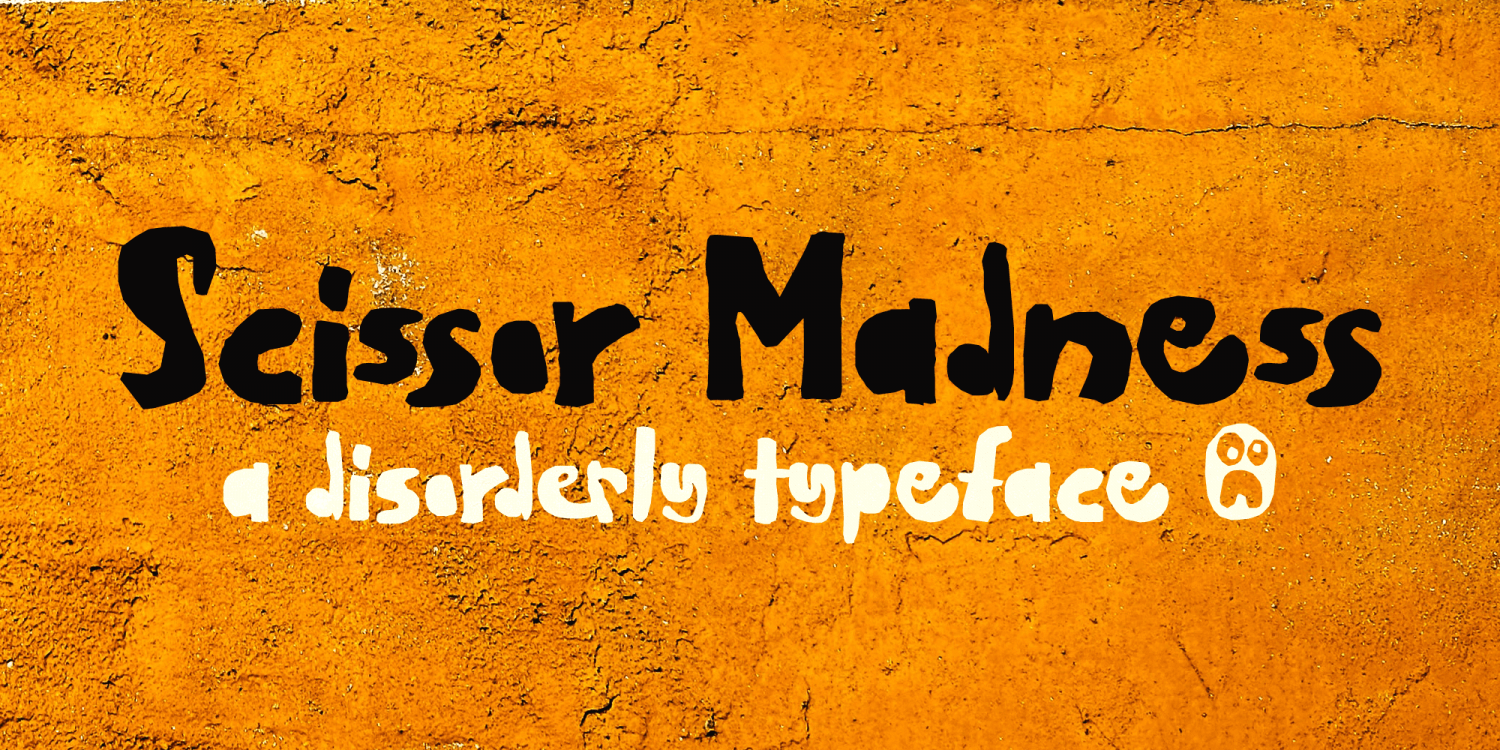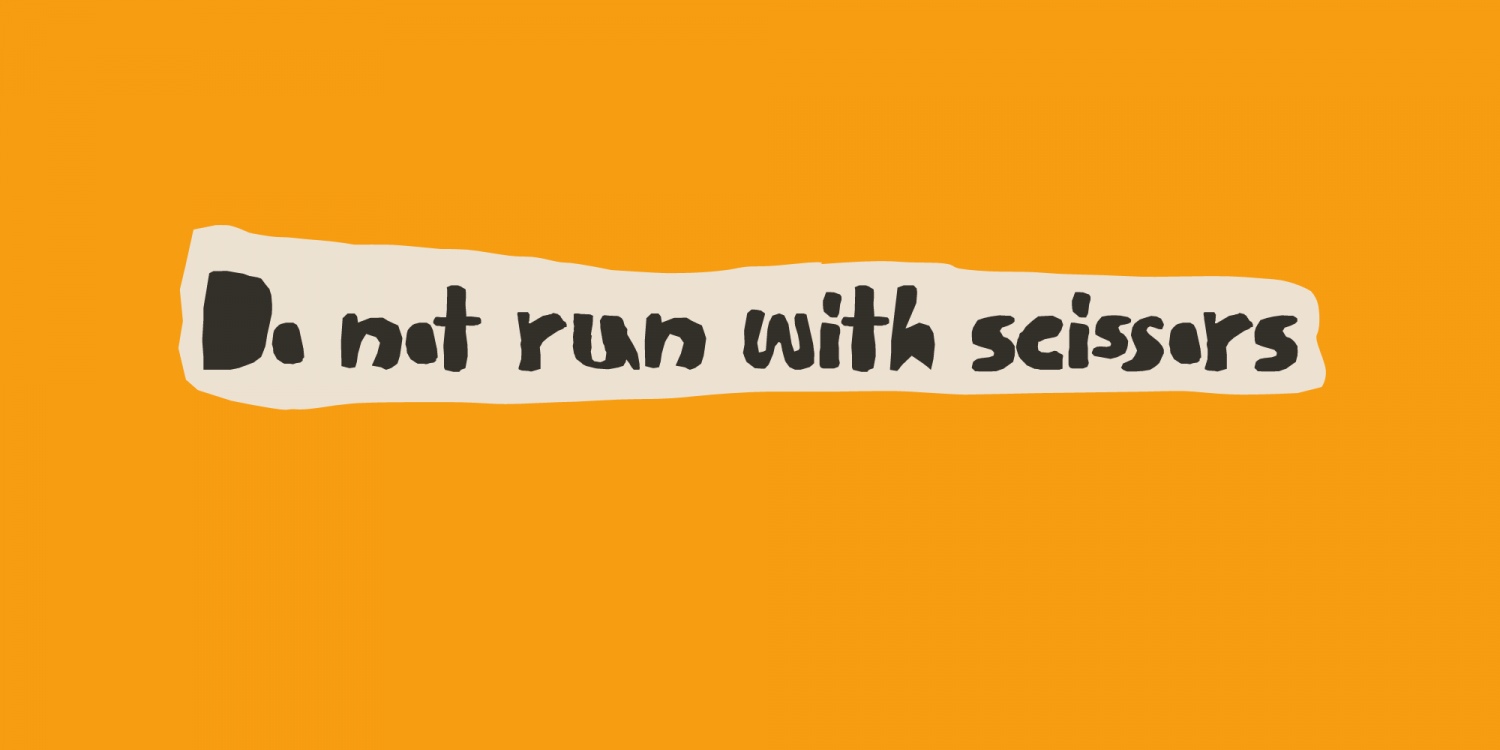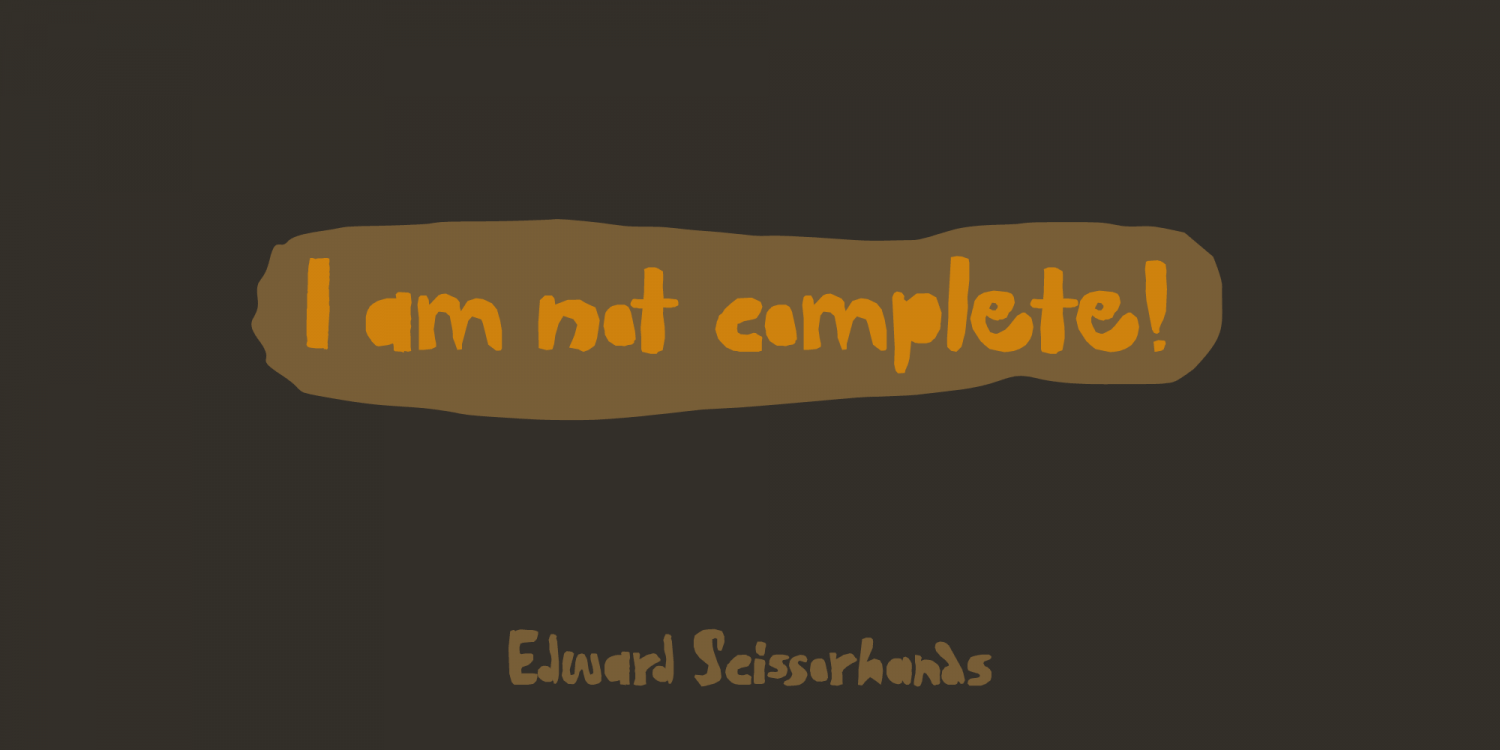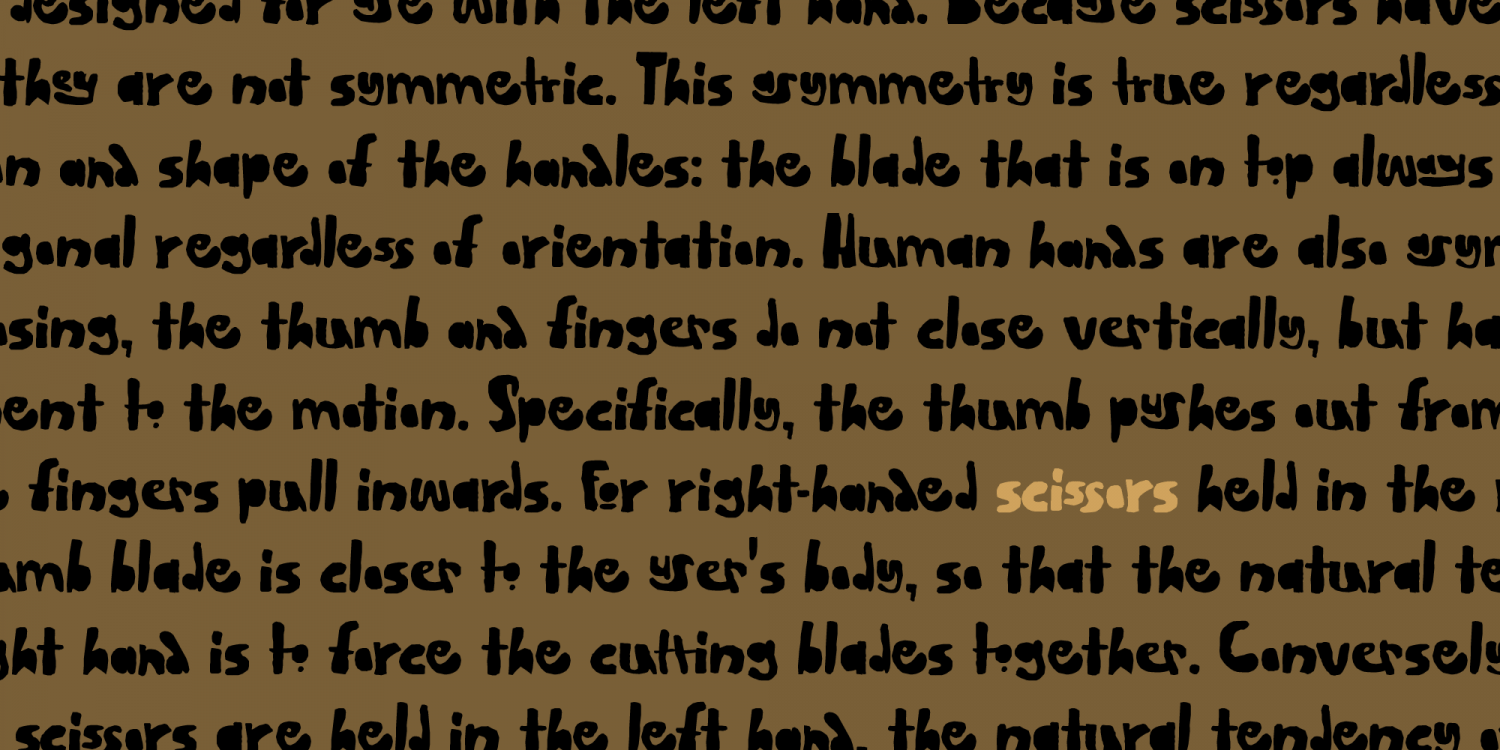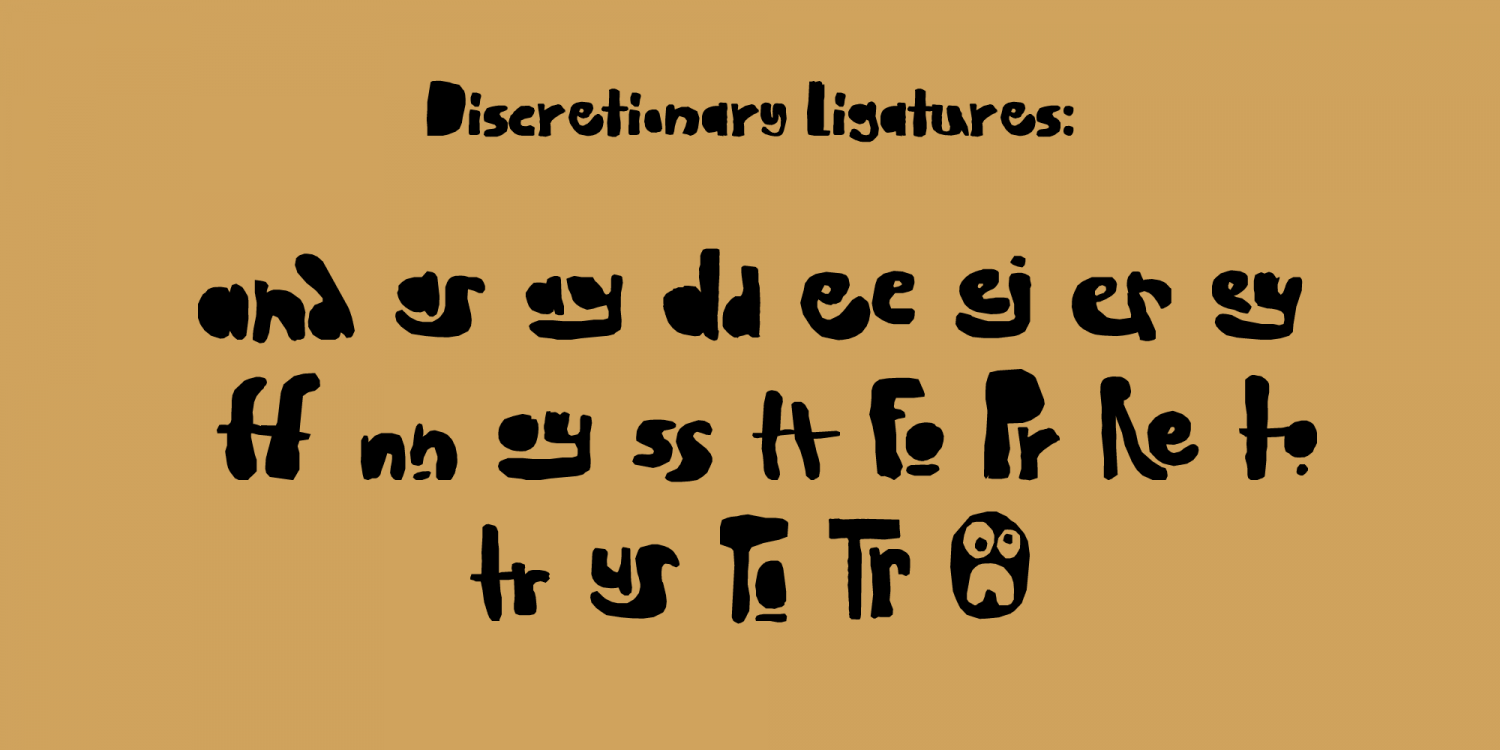
Scissor Madness
Back in 2017, I was working on a cutout font that I originally wanted to call Scissor Madness. In the end, I named it Cut Along and it was quite a popular font for a while. This week I decided to clean up my fonts folder a bit (as I usually have tons of unfinished fonts lurking in there) and I found a file named Scissor Madness. It was the original try-out for Cut Along. It contained a couple of nice glyphs that I never used, so I started playing around with them and after a day, I had a whole new font! So, in short, Scissor Madness was partly cut out by hand, partly computer made, but it is 100% fun to use! Scissor Madness comes with a bunch of very cute discretionary ligatures.